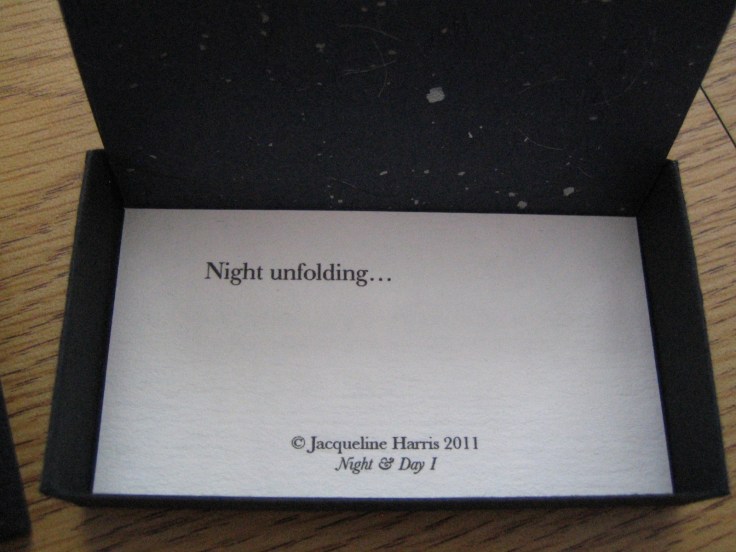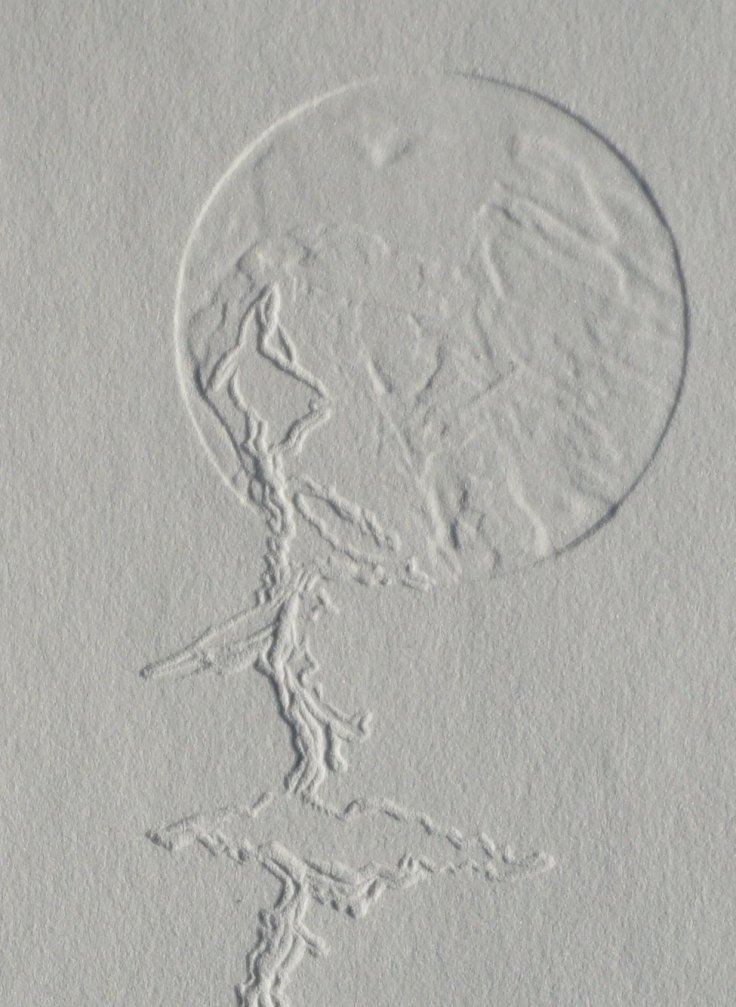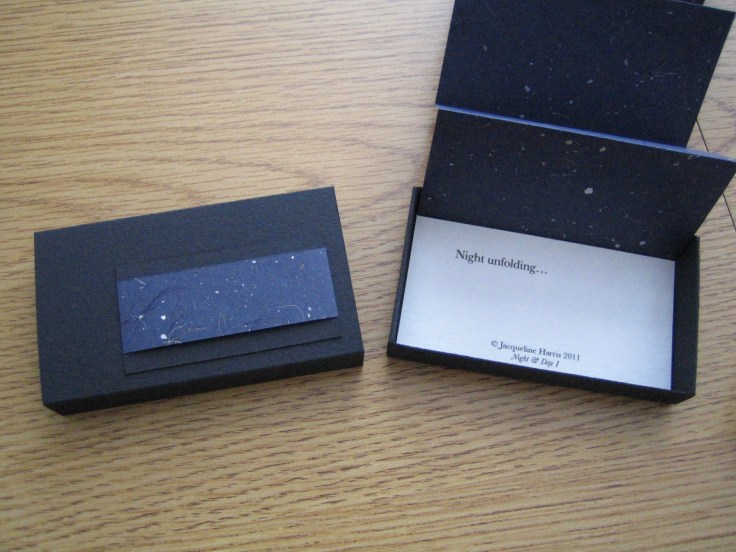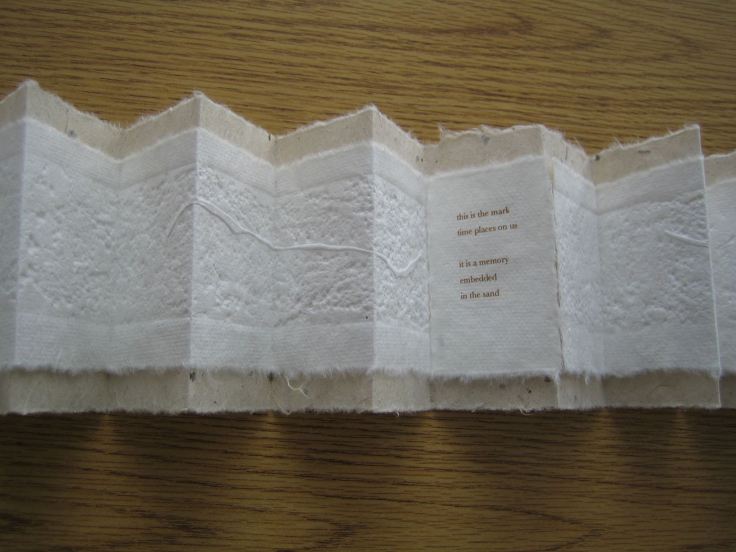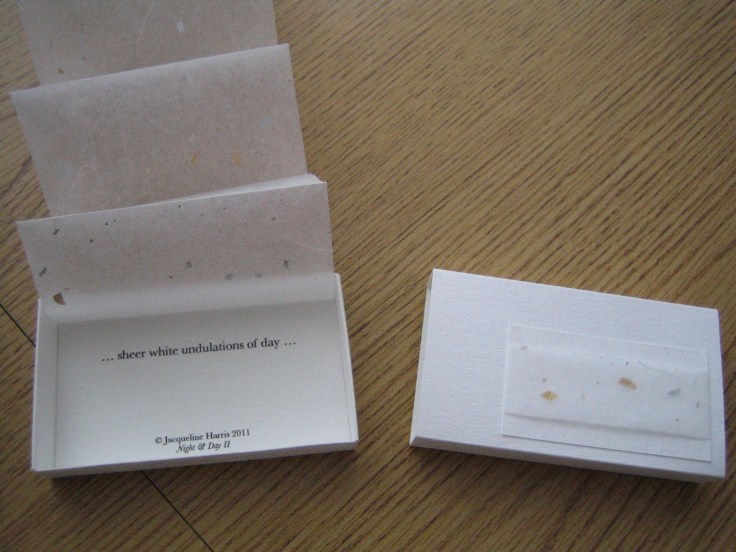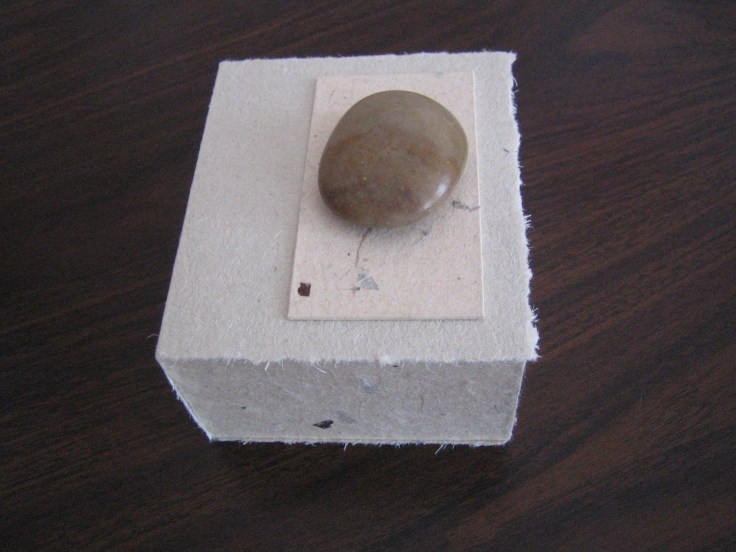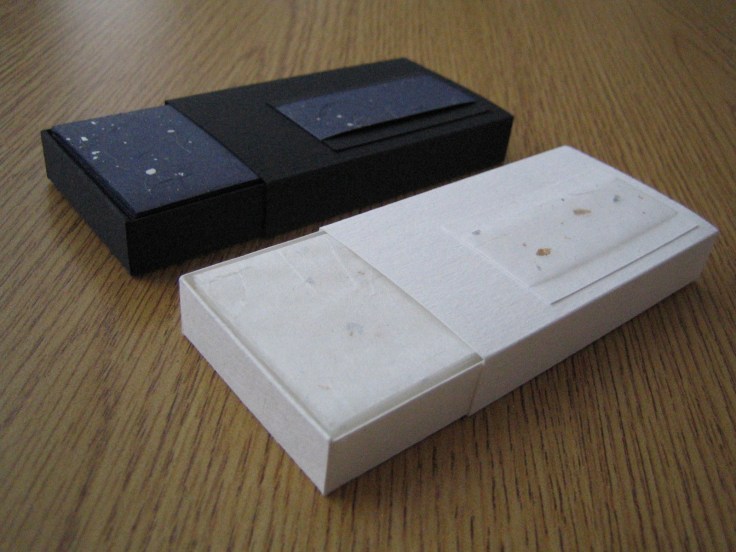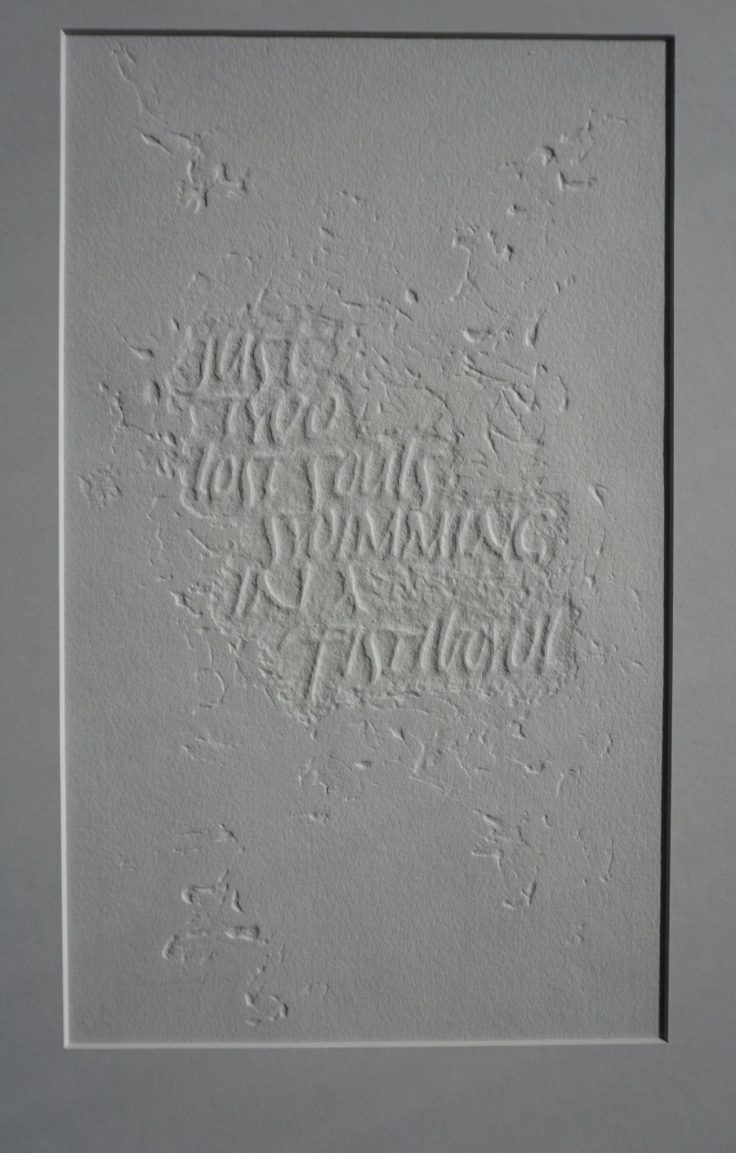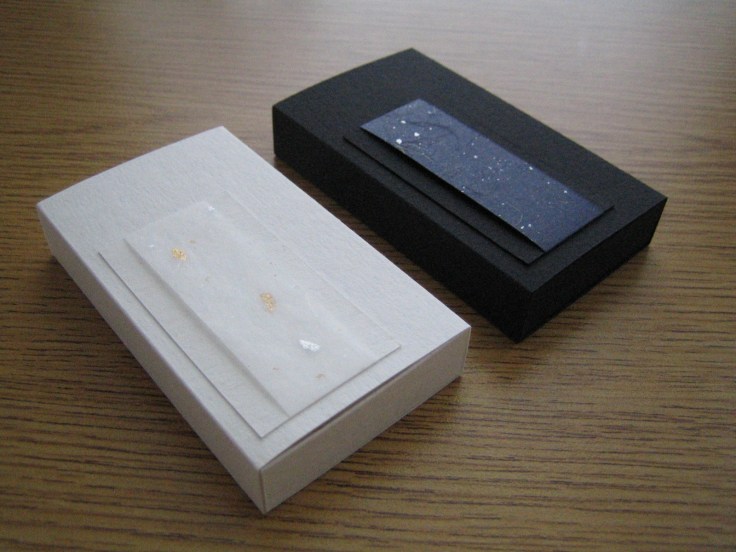
Paper…it is a universe within itself… As handlers of paper we respond to how it feels, looks and responds to our touch, to its weight, by how it moves and how it sounds when it moves, how it bends, and how it can flap about when you animate it, or how serene and beautiful it may look when it hangs from a wall or falls from a book… This list can go on and on. Besides the amazing things that artists can do and say with this fine medium for expression, paper can say a whole lot without having anything said on it.
These are elements I was exploring when I developed the following three book works which were created specifically for a Canadian group exhibition that showed in 2011 called “Bound by Nature, An exhibition inspired by nature, landscape and books,” curated by Canadian artist Deborah Danelley.
With “Memoir, a book of sand” I was interested in exploring texture and containment, light and shadow, and the metaphor of moving through time with the eye travelling across the length of an image, a book. Taking the memory that time places on us and containing it in this form felt like a natural thing to do…
“Memoir, a book of sand” 2011 Book cover/box: 2 3/8″ h x 4 1/2″ l x 3 7/8″w (h 6cm x l 11.5cm x w 9.8cm) Fine Japanese St. Armand papers mounted on board.A concertina book structure with an inkless embossed print mounted and bound on fine handmade Japanese papers. Book opens up to approx. 106 in. (269 cm) Text contemplation by Jacqueline Harris. Photo credit: Nicole Coulson.
Poem text:
memory…
a mark in time…
this is the mark
time places on us
it is a memory
embedded
in the sand
Detail of “Memoir, a book of sand” Digital text in pigment ink. Photo credit: Nicole Coulson.Detail of inkless print in “Memoir, a book of sand” Inkless print hand rendered onto paper from a long plate made up of acrylic mediums on board.
The next set of books “Night & Day I” and “Night & Day II” is an example of how papers can speak for themselves…
“Night & Day I” “Night & Day II” 2011 Matchbox books bound with Arches and fine Japanese papers.Detail of “Night & Day” books.Detail of “Night & Day I” Text digitally rendered in pigment inks and composed by Jacqueline Harris.Detail of “Night & Day II” Text digitally rendered in pigment inks and composed by Jacqueline Harris.Detail “Night & Day I”Detail “Night & Day II”Details of “Night & Day” books.
“Dream Sequence I, L’enchantement de la femme noire”
In this work I was exploring size and the concept of the “unfolding” element of a narrative. I also wanted to feel physically engaged in the handling experience of reading a book with such wide pages…you have to use your whole arm to turn the pages, and I found this very engaging as a reader.
“Dream Sequence I, L’enchantement de la femme noire” 2011 This “book” is bound in a handmade box. To provide an idea of the scale of this book, dimensions are: h 18.3 cm x w 64cm x d 1.2cm; h 7.2″ x w 25.2″ x d .47″ (book closed up)Detail of “Dream Sequence I, L’enchantement de la femme noire”
Building a visual narrative is like building a poem. Thematic elements and motifs occur and recur throughout the piece, building up rhythm and harmony. I wanted to retain such a feel with the method of printing and gilding, and so devised a way to apply the gold in the work in the manner of the pochoir method of the forest and dame noire.
Inside detail of “Dream Sequence I, L’enchantement de la femme noire”Narrative consists of Pochoir print and 23kt gilding on Rives, mounted and bound on fine Japanese and St. Armand papers. w 186.6 cm; w 73.5″ (book opened up) Photo credit: Nicole Coulson
This is a question that I ask myself: What is writing? Does the act of writing always have to deal with letters? What if the act of writing dealt with image… We could say that written/drawn letters can become image, but what about the act, the motion of writing becoming the image…After all, writing is a gestural act, and unique to each hand that practices it.
The three works I am showing below are examples of inkless prints – one of the areas I have been working on to which I have been applying the musings above. It is interesting to think of the works below as writing, as they have not been rendered with ink… Within these works, the light casts shadows upon the carved forms, and the shadows act as the ink.
“Just two lost souls swimming in a fishbowl” is a traditionally lettered piece inspired by the Roman Cursive style of writing. The letters were rendered in a traditional calligraphic manner, then transferred to a board to be used as a plate for printing. Working on the “empty” space surrounding the letters, acrylic medium was shaped around the edge of the letters, with further detailing applied throughout the plate. The plate work was as much sculpted as it was written.The focus of development for this work was on making the letters clear and legible. To my eye, this piece has a more traditional, classic lettering element.
“Two lost souls swimming in a fishbowl” 2008 9” x 15” (22.8 cm x 38 cm) Inkless print on Rives Moulin du Gue from board with acrylic medium, printed on an etching press. Lyric line from Pink Floyd’s “Wish you were here” song.Detail of “Two lost souls…”
“Bound by Nature” is another lettered work. Here I was developing some expressive outline letters that relied on impulsive gestural movements to form them. Once transferred to the linoleum, these lively letters were carved with my carving tool into the plate, again, in a gestural manner – much like hand writing. The letters are mostly legible, but somehow they take on a dancing, drawn quality.
“Bound by Nature” 2011 Inkless print on Canson Edition printed from linoleum on an etching press. 4” x 7 1/2” (10.2 cm x 19 cm)Detail of “Bound by Nature”
“Solitude” is an example of a work that I call a “written image.” While the moon is formed from acrylic medium applied to the lino plate, the carving of the tree image is rendered in strokes that are very much like hand writing. My carving knife has become my pen, and my image my writing. For me, it is like writing a poem, except that in this instance, the image is the poem, and the strokes used to make the image the “letters” that made up that poem.
“Solitude” 2014 Inkless print on Canson Edition printed from linoleum on an etching press. 5 3/8” x 7 1/2” (13.6 cm x 19 cm)Detail of “Solitude”